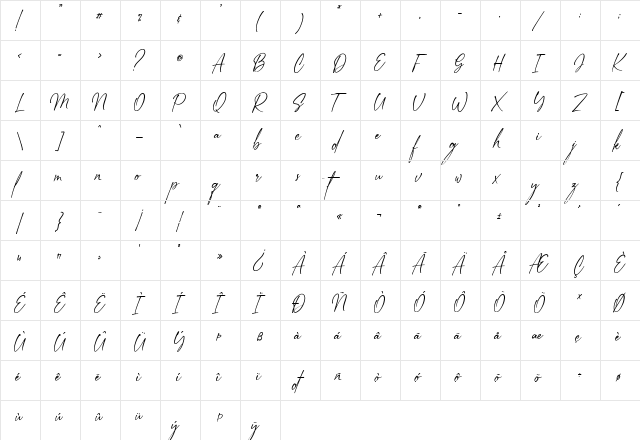
Next Southerland Script DEMO Regular
Design Context for Next Southerland Script DEMO Typeface
Next Southerland Script DEMO brings a calligraphic fluidity to the page — its connecting strokes and expressive curves give it an unmistakably human quality.
Font Pairing: Combine Next Southerland Script DEMO with a simple geometric sans for maximum contrast — the tension between flowing curves and clean structure is a classic typographic pairing.
Pro Tip: Use Next Southerland Script DEMO for short runs of text — names, titles, or taglines. Extended body copy in script faces tires the eye quickly.